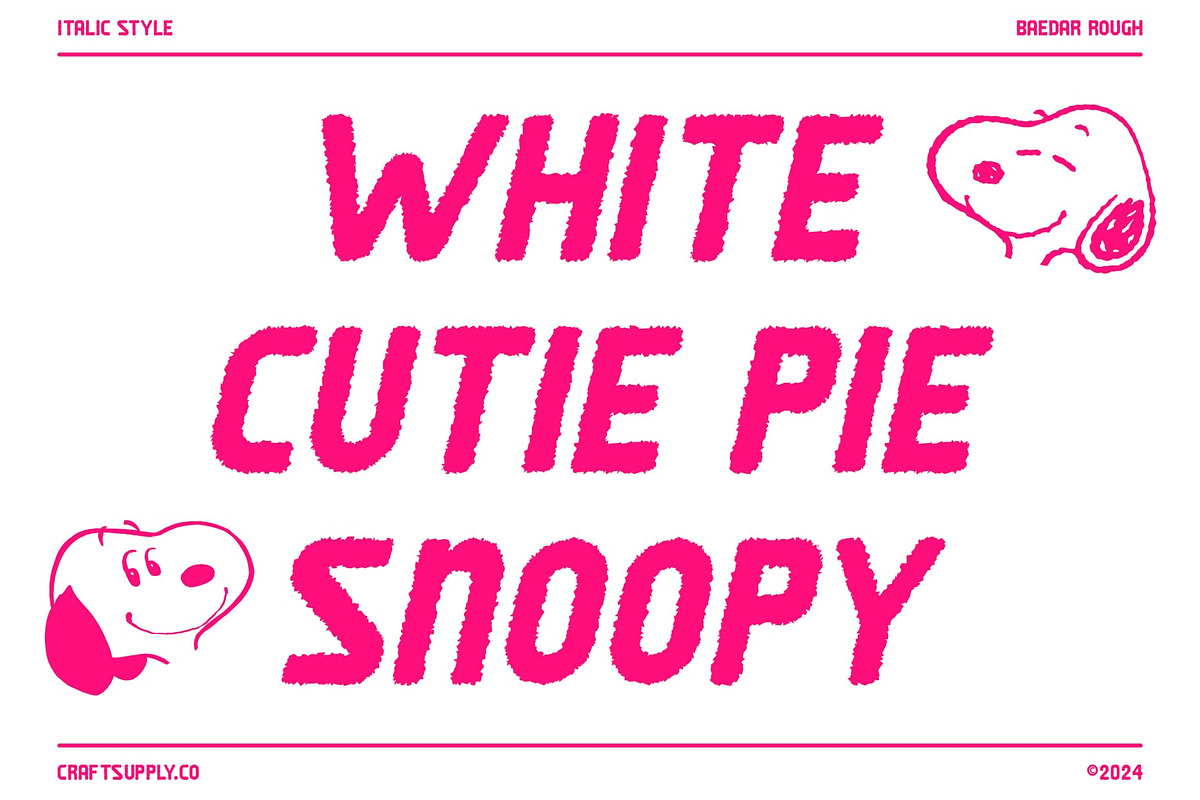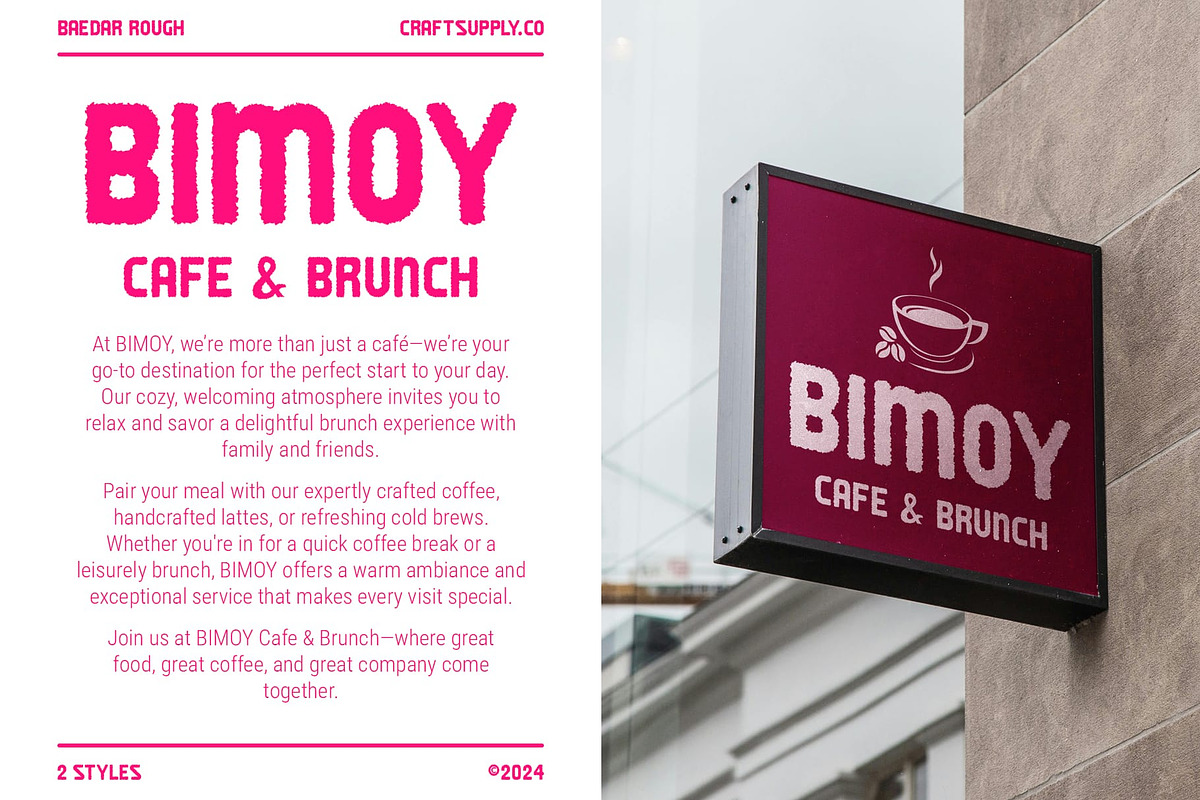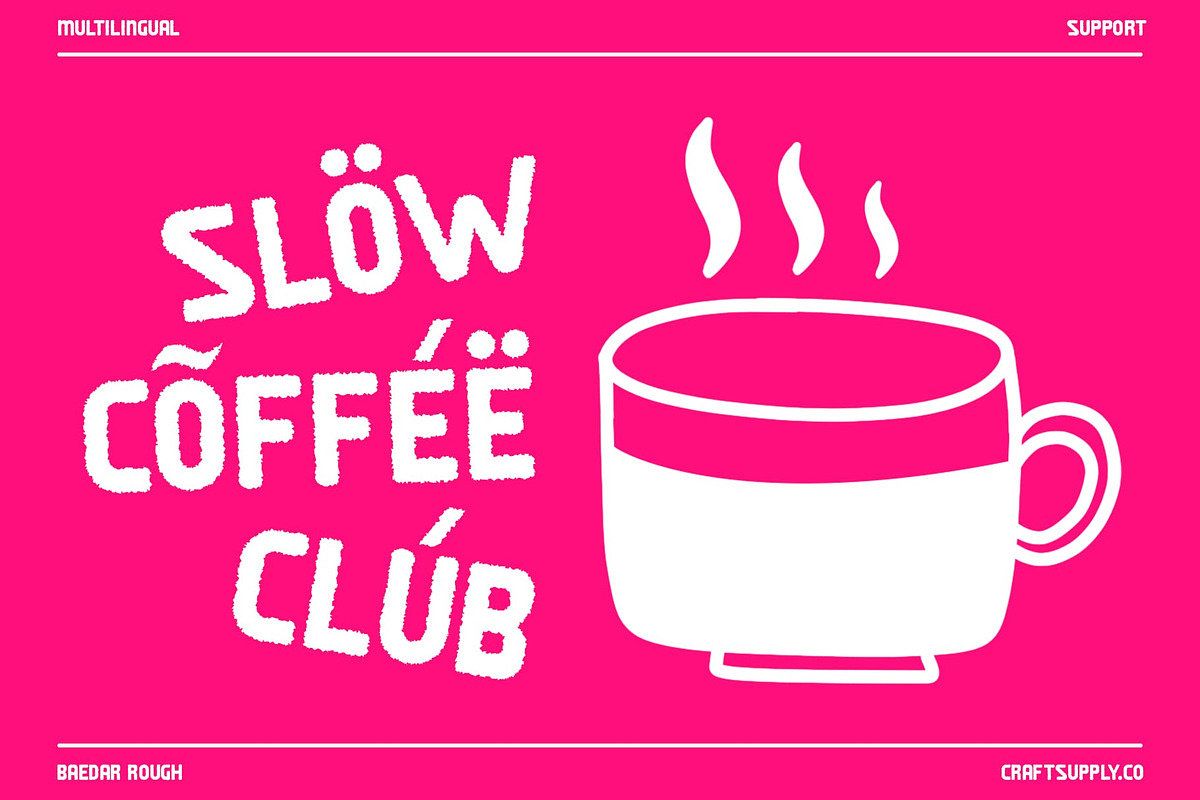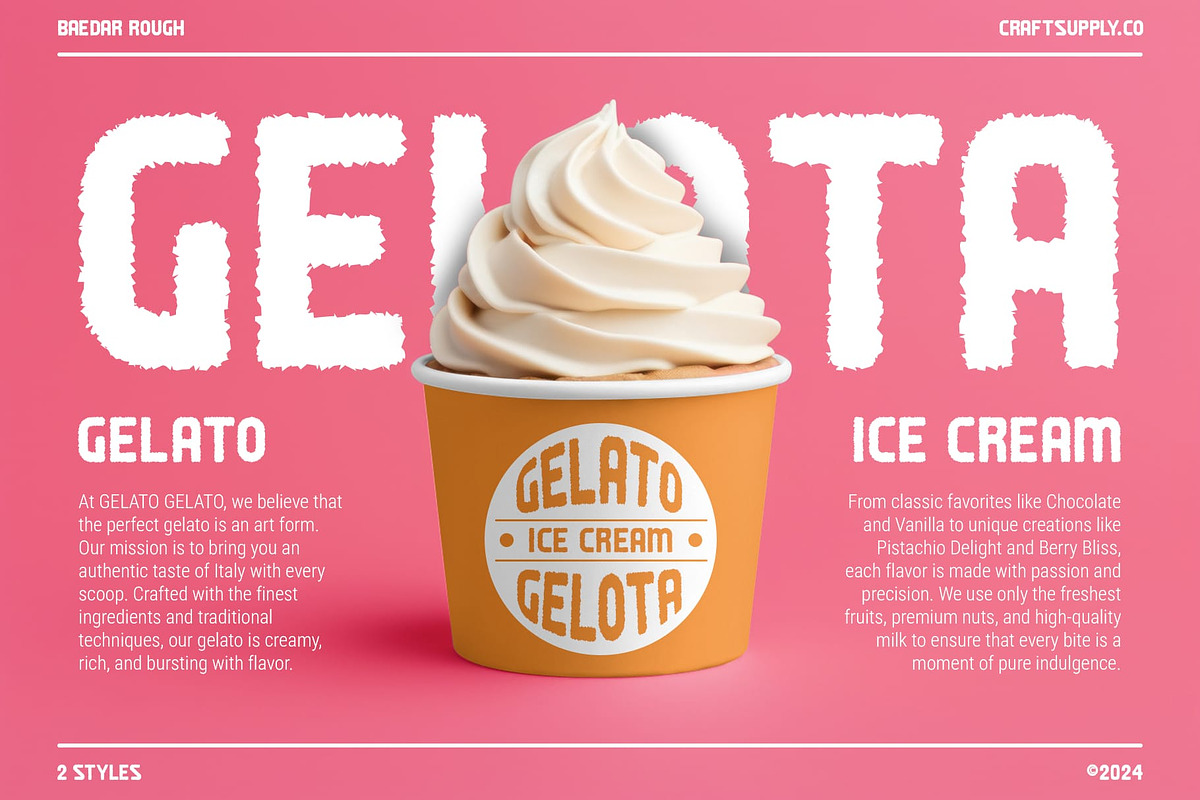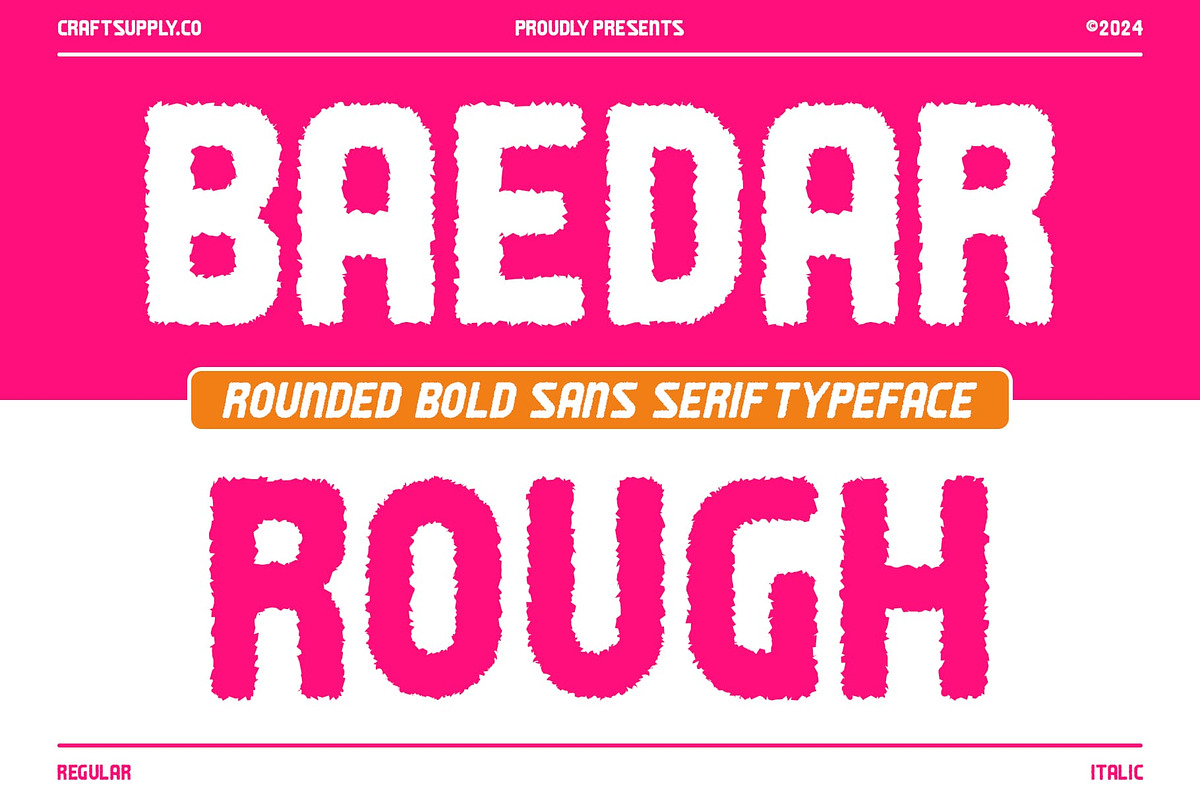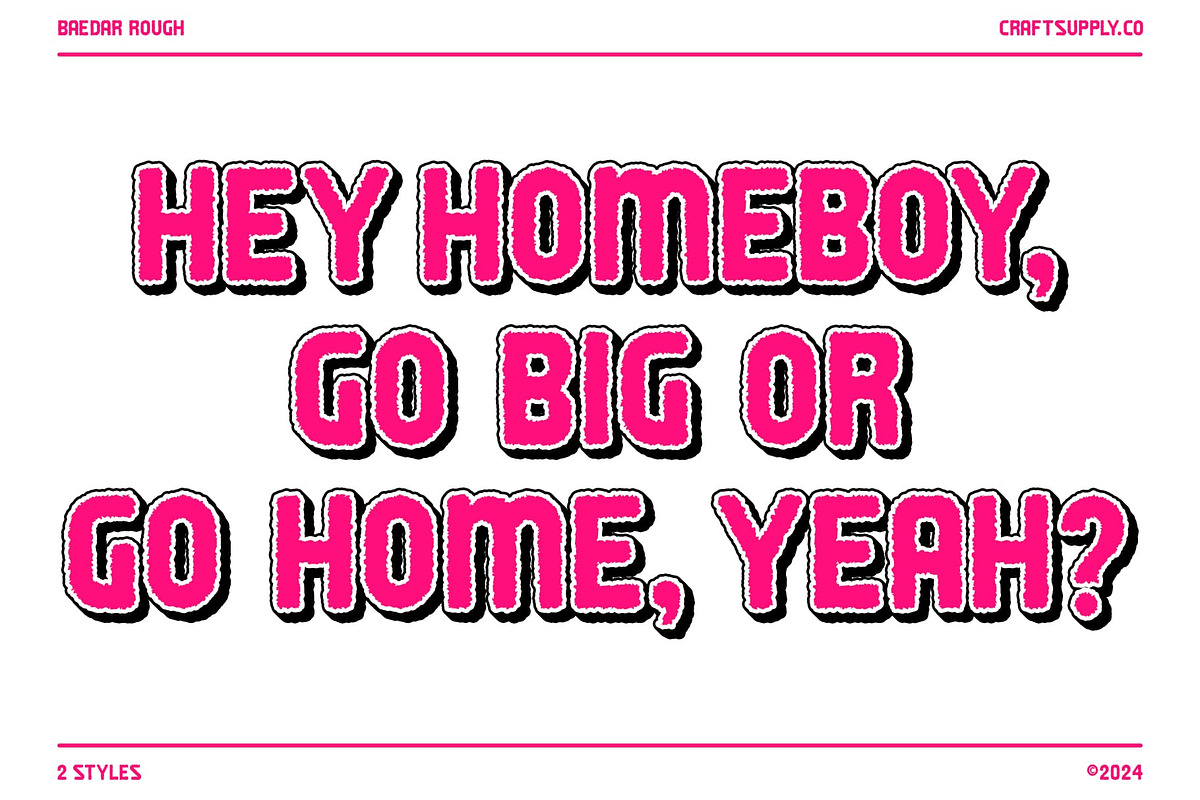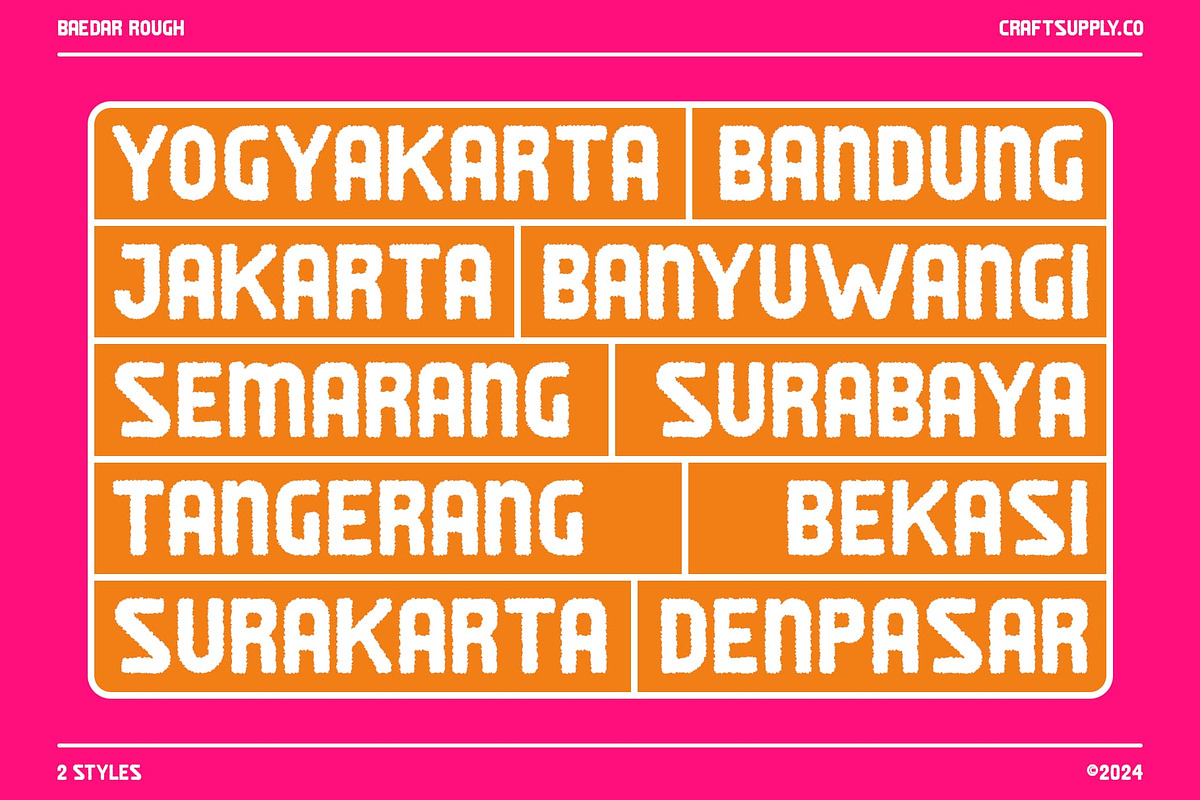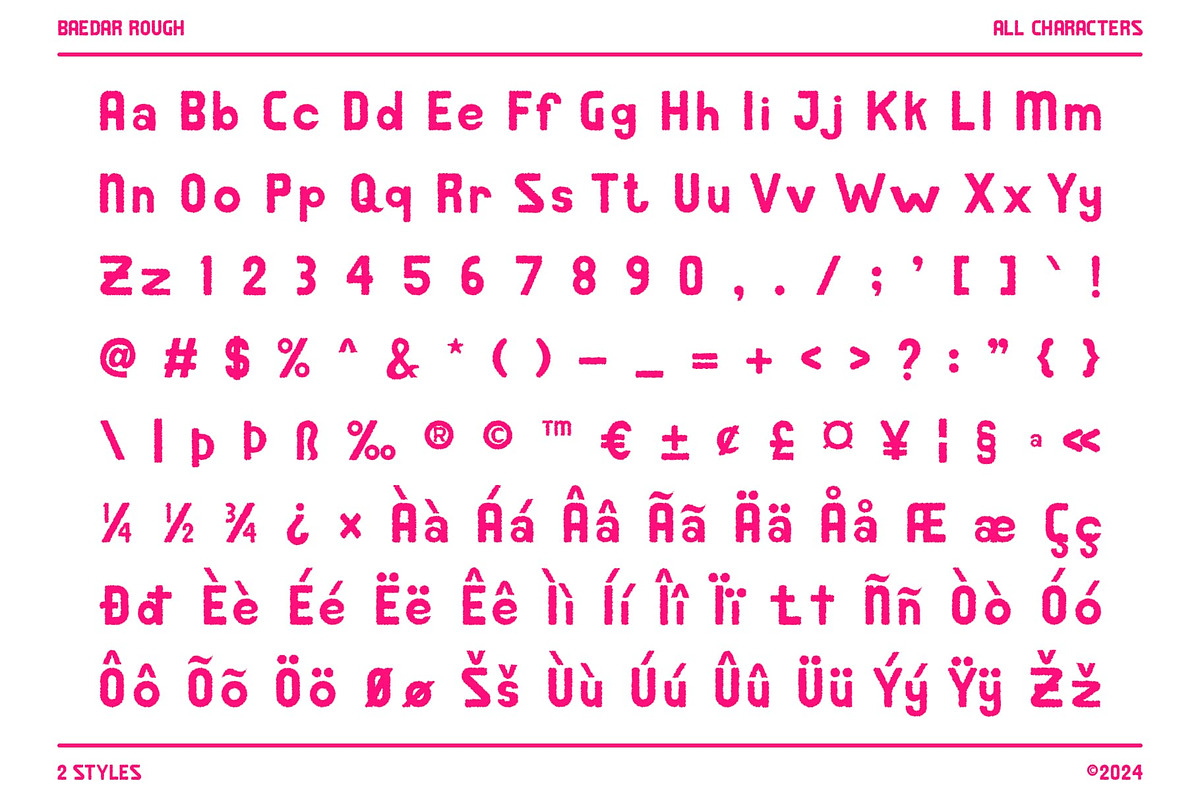
Baedar Rough
Baedar Rough Font: Bold Sans-Serif with a Rugged Charm
Bold and Rounded Design Baedar Rough is a sans-serif font distinguished by its bold, rounded shapes and dynamic presence. The bold form ensures a strong and assertive impact, making it ideal for designs that demand attention. The rounded edges introduce a friendly, approachable feel, striking a balance between visual strength and warmth.
Rough Effect for Character and Texture The rough effect enhances Baedar Rough with an added layer of character and texture, giving the font a slightly rugged, yet sophisticated look. This texture provides a unique visual appeal that sets the font apart, adding depth and interest to any design.
Perfect for Bold, Warm Impressions Baedar Rough excels in creative branding, posters, and promotional materials where a bold yet warm impression is needed. Its combination of strong, rounded shapes and rugged texture makes it an excellent choice for projects that seek to blend impact with a touch of friendliness and character.
Versatile and Engaging Whether for modern branding or eye-catching promotional materials, Baedar Rough offers a distinctive and engaging appearance. Its bold design and rough texture create a visually compelling font that stands out while maintaining a warm and approachable vibe.
- Baedar Rough Regular
- Baedar Rough Italic